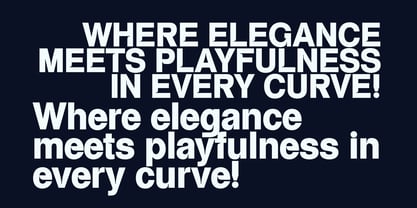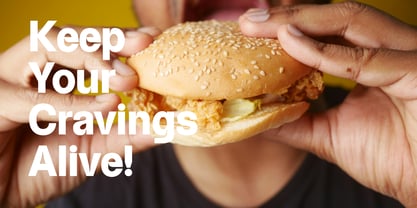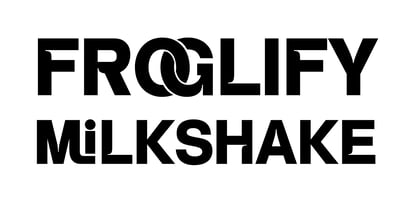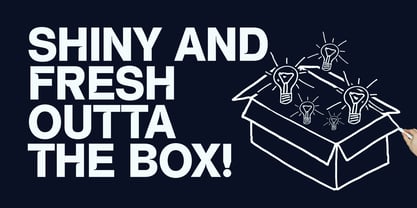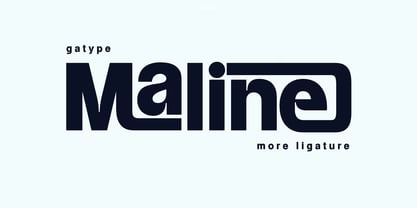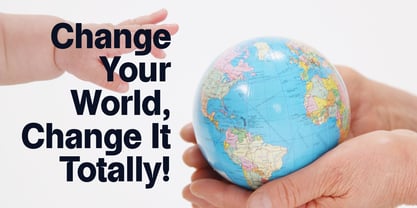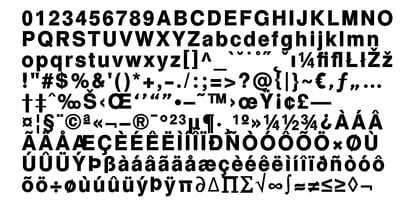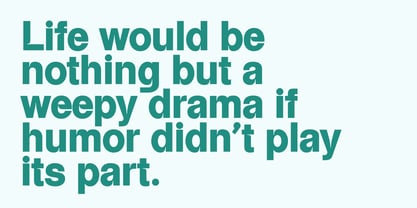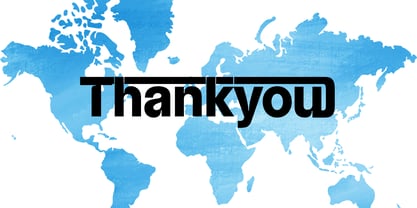
Maline
by Gatype
The Maline Font Family was designed by khaidir and published by Gatype. Maline contains 1 styles. More about this family
A modern display typeface where minimalism meets elegance. Designed to express freshness and sophistication, it blends clean geometric structure with graceful organic curves. Each character flows with balance and intention, giving every composition a sense of confident beauty and timeless style. Perfect for lifestyle branding, editorials, packaging, and digital design—this font delivers a refined voice that feels both modern and inviting. Features: • Full uppercase & lowercase characters • Numbers & punctuation • Multilingual support • Alternates for stylistic versatility • Elegant ligatures for natural flow Bring a touch of effortless sophistication to your next project with this beautifully modern typeface.